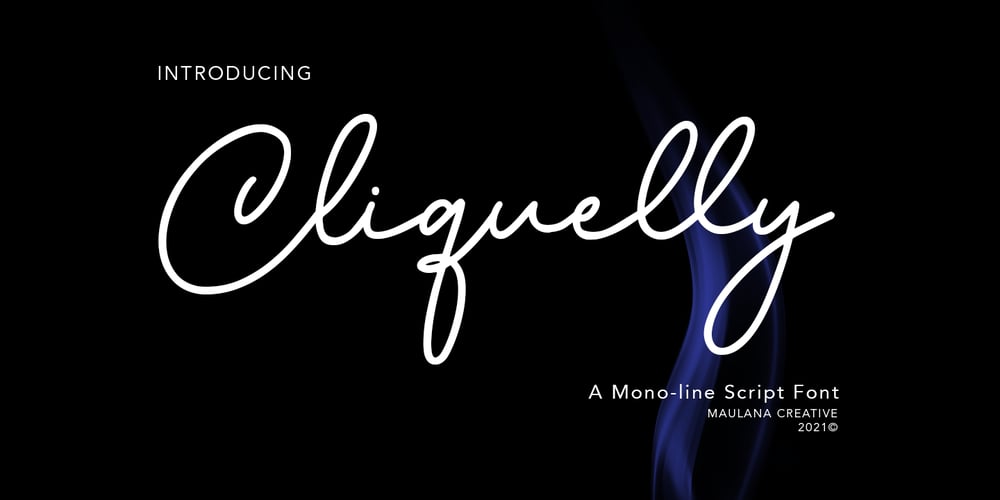
Cliquelly Font Family was designed by Gilang Maulana and published by Maulana Creative. Cliquelly contains 1 styles and family package options. Cliquelly is a curvy script font, with a clean mono-line stroke, slanted and fun character. It has Opentype features ligatures of character, To give you an extra creative work. Cliquelly font support multilingual more than 100+ language. This font is good for logo design, Social media, Movie Titles, Books Titles, a short text even a long text letter and good for your secondary text font with sans or serif. Make a stunning work with Cliquelly font. Cheers, MaulanaCreative